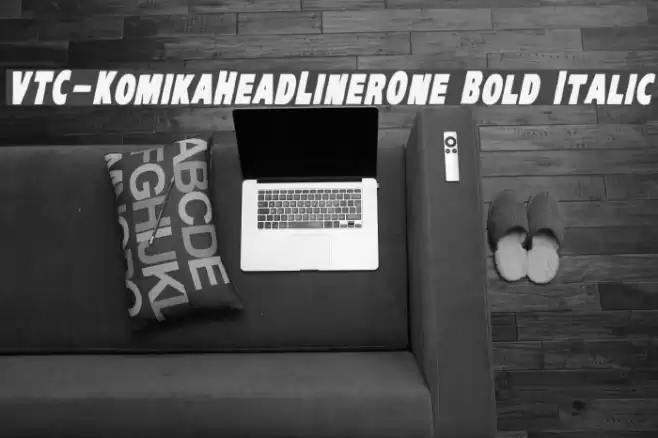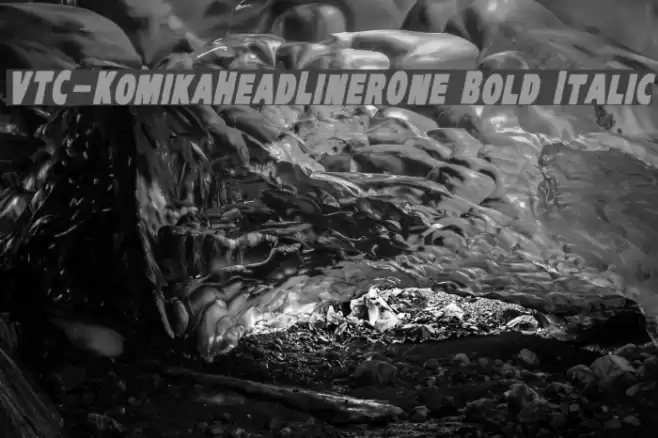
VTC-KomikaHeadLinerOne Bold Italic Font
VTC-KomikaHeadLinerOne Bold Italic Description
This font features a bold and dynamic style with a strong italic slant, giving it a sense of movement and energy. The characters are thick and robust, making them highly visible and impactful. The uppercase letters are particularly striking, with a slight forward tilt that enhances their boldness. The numbers and special characters maintain the same bold and italicized characteristics, ensuring consistency across all glyphs. This font's design is both modern and playful, making it suitable for projects that require a strong visual presence.
A bold, italicized font with a dynamic and energetic style from Uncategorized fonts.
- Proposed Projects: Ideal for comic book titles, posters, advertisements, and any project needing a bold, eye-catching typeface.